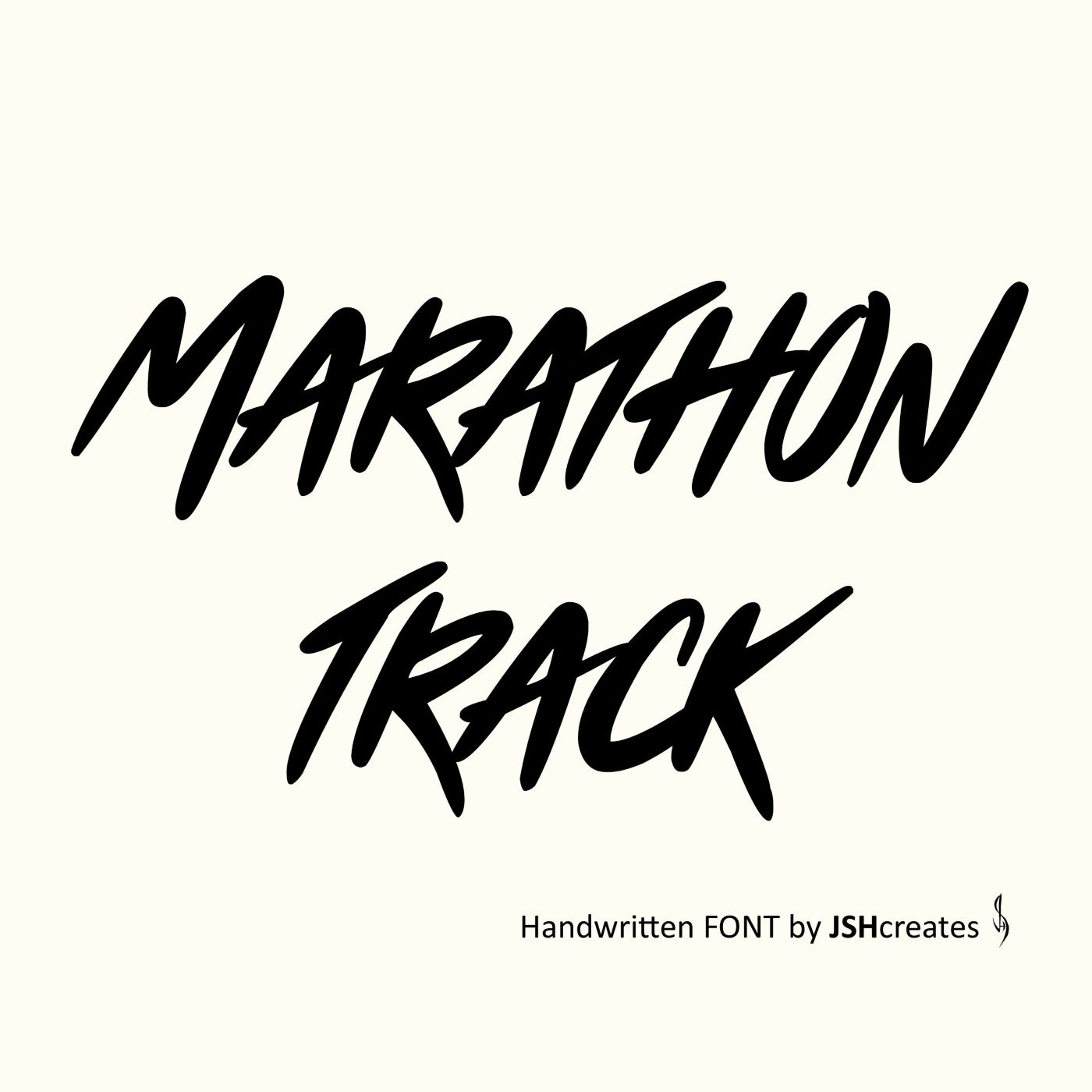
Marathon Track Font
Handwritten font. “Marathon Track”. Perfect for advertising and display purposes, including banners, book covers, shirts, posters, logos and much more!
This is an All CAPS font.